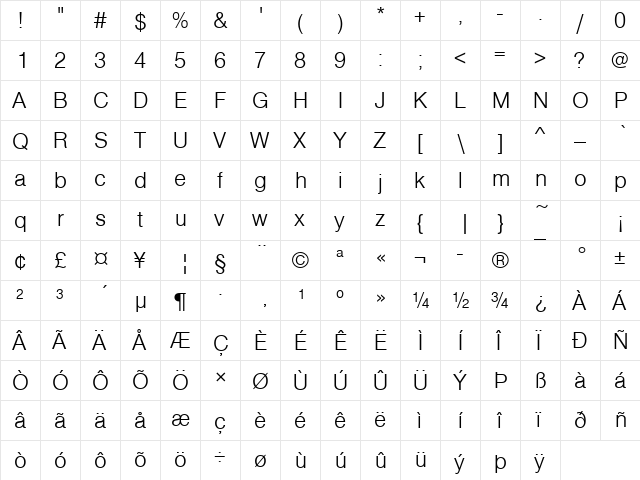
Nimbus Sans Becker No5TLig Regular Font Preview
Nimbus Sans Becker No5TLig Regular
Design Context for Nimbus Sans Becker No5TLig Typeface
Nimbus Sans Becker No5TLig takes a measured approach to typography — its balanced proportions and neutral character make it a reliable workhorse for both digital and print work.